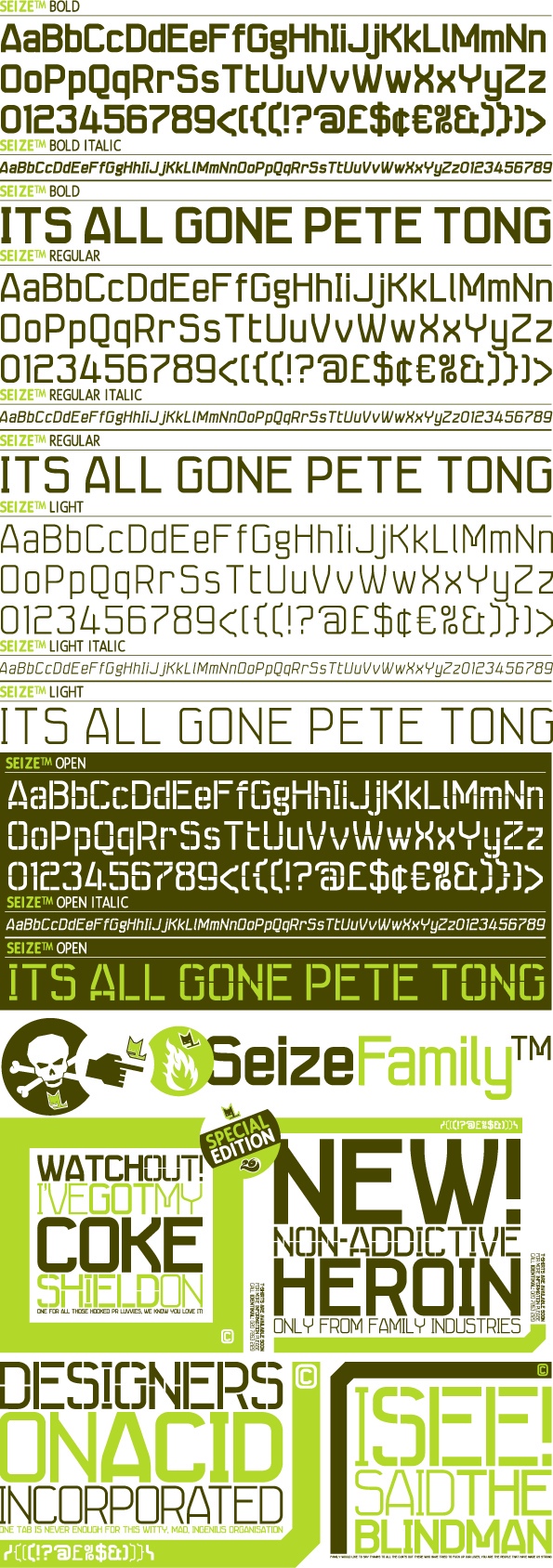
Seize Font
Seize Font is perfect for powerful advertising campaigns, dynamic sports branding, motivational poster design, fitness center signage, action movie titles, energetic logo creation, bold magazine headlines, athletic apparel branding, competitive event materials, high-impact web headers, strength training promotions, and commanding corporate communications.
Seize Font is exciting because it embodies pure energy and determination with bold, assertive letterforms that command immediate attention and inspire action, making it the perfect choice for brands and projects that need to communicate strength, urgency, and the unstoppable drive to achieve goals and seize opportunities.
The Seize Font family includes powerful variations: Regular, Bold, Black, Condensed, Extended, and Impact styles, providing designers with a complete high-energy typography arsenal to create commanding compositions that motivate audiences and drive immediate response and engagement.
Take control with Seize Font Free Download. This dynamic powerhouse typeface brings commanding energy and unstoppable momentum to contemporary design projects. Whether you're creating motivational brand identities, designing high-impact advertising materials, or developing urgent marketing campaigns, Seize Font delivers unmatched authority and action-oriented appeal that drives results.
The font's aggressively crafted letterforms feature bold strokes and confident proportions that create immediate visual impact and psychological urgency. Each character demonstrates unwavering strength and determination, with carefully optimized details that ensure maximum legibility while maintaining commanding presence across all applications.
Seize Font excels in creating memorable brand experiences for businesses that embody action, achievement, and competitive excellence. Its powerful presence transforms ordinary communications into urgent calls to action that resonate with audiences seeking motivation, empowerment, and the drive to succeed in competitive environments.
Professional designers value how Seize Font maintains its aggressive character while providing exceptional versatility across diverse applications. The comprehensive style range ensures optimal performance from intimate motivational messages to massive outdoor campaigns, maintaining consistent energy and visual authority.
This remarkable typeface brings instant urgency and competitive edge to any project requiring immediate action or emotional response. From fitness brands to emergency services, Seize Font creates powerful impressions that communicate strength, reliability, and the uncompromising determination to achieve excellence and overcome challenges.